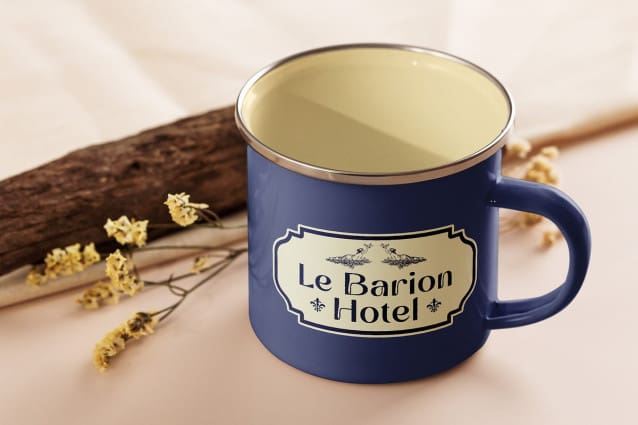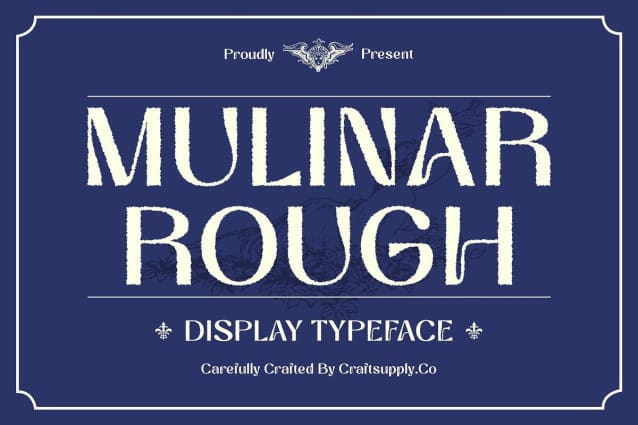
Mulinar Rough Font
Mulinar Rough Font is a captivating modern display sans serif font inspired by the flowing lines and organic shapes of Art Nouveau. Its design elegantly combines beauty and sophistication, making it an exceptional choice for creative projects that seek to convey a sense of artistry and elegance.
Flowing Lines for Timeless Beauty The distinct flowing lines and graceful curves of Mulinar Rough evoke the natural forms found in Art Nouveau, creating a design that feels both dynamic and harmonious. This font’s organic shapes not only capture attention but also bring a sense of movement and vitality to any composition. Ideal for branding and packaging, it can breathe life into your visual identity, leaving a lasting impression on your audience.
Unique Character with a Rough Texture Mulinar Rough’s rough texture adds an intriguing layer of character that sets it apart from traditional fonts. This handcrafted feel enhances the artistic quality of your designs, making it perfect for projects that prioritize individuality and creativity. Whether used in logos, invitations, or artistic layouts, this font elevates the overall visual appeal while maintaining an engaging and approachable aesthetic.